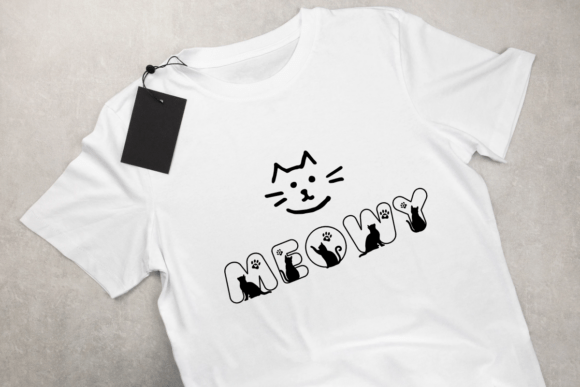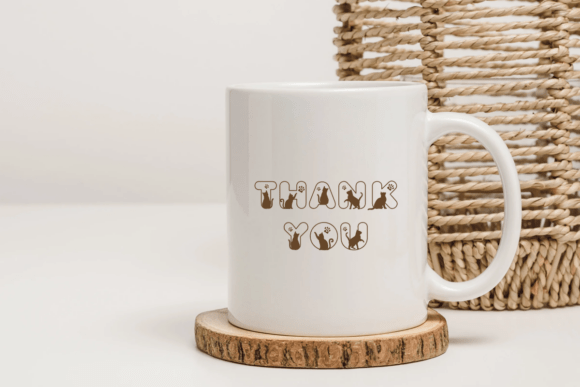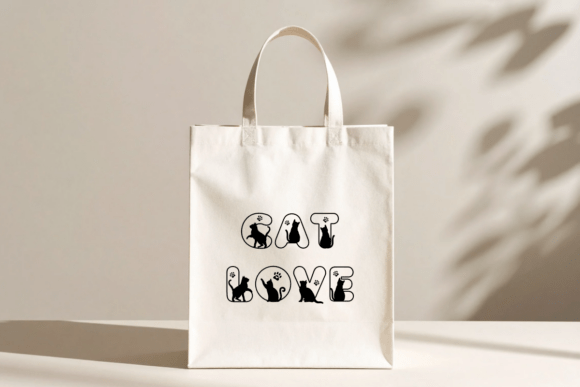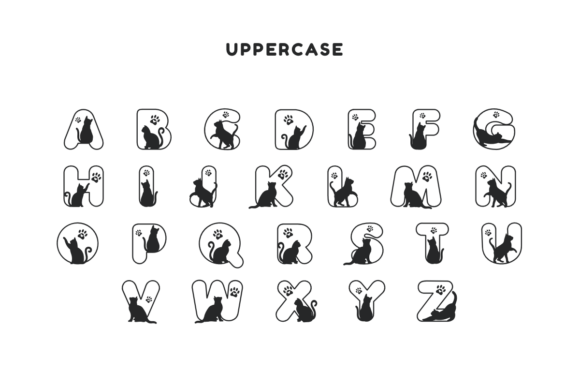
Meet Your New Feline Friend: Cat Lover Font
Have you ever found yourself doodling adorable cat faces in the margins of your sketchbook? You’re not alone! As creatives, we’re often drawn to whimsical illustrations and playful typography. That’s why we’re excited to introduce you to Cat Lover Font, a decorative font that combines clean lines with charming feline silhouettes.
This unique typeface is perfect for designers looking to add a touch of personality to their projects. With Cat Lover Font, every letter features an integrated cat design, from playful paws to elegant sitting poses. Its clean, bold structure ensures readability, while the cat illustrations provide an eye-catching visual element. Whether you’re working on branding for pet-related businesses or designing social media graphics for cat lovers, this font is sure to bring a smile to your clients’ faces.
- Unique Character Set: Includes a range of cat-themed symbols and icons, adding a touch of whimsy to any design.
Cat Lover Font Review
As a designer, I was excited to dive into the “Cat Lover Font” and see if it lived up to its name. Overall, I found it to be a fun and playful font that’s sure to delight cat enthusiasts.
- Friendly and approachable feel, making it perfect for cat-related projects or any design that needs a touch of whimsy.
- Includes a range of cat-themed characters and symbols, adding a cute touch to any design.
- The font is highly customizable, allowing you to adjust the size, color, and style to fit your project’s needs.
- The font may not be suitable for formal or professional projects, as its playful nature may not be taken seriously.
- The cat-themed characters and symbols can be overwhelming if used excessively, so be mindful of balance and restraint.
- Some users may find the font’s quirks and irregularities distracting, especially in large blocks of text.
While the “Cat Lover Font” has its limitations, I think it’s a great addition to any designer’s toolkit. Its unique personality and customization options make it perfect for cat-themed projects or any design that needs a fun and playful touch. Just be mindful of its potential drawbacks and use it judiciously to achieve the best results.
Tips for Getting the Most Out of Cat Lover Font
Use Cat Lover Font for cat-themed designs, such as cat calendars, cat posters, or cat merchandise.
Combine Cat Lover Font with cat illustrations or photos for a cohesive and eye-catching design.
Experiment with different font sizes and colors to create visual interest and emphasis.
Cat Lover Font is perfect for:
Cat calendars and planners
Cat-themed merchandise, such as t-shirts and mugs
Cat posters and prints
Social media graphics and advertisements